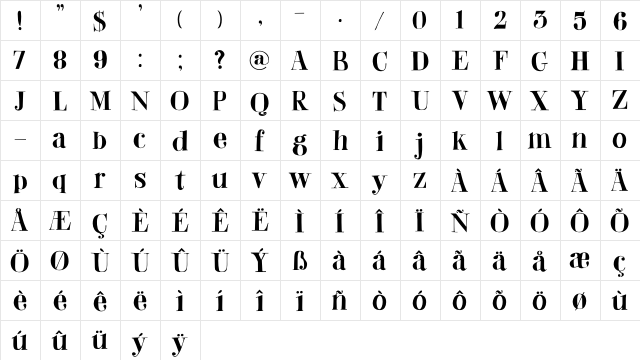
DK Abeille Regular
| Foundry | David Kerkhoff |
| Designer | David Kerkhoff |
Design Context for DK Abeille Typeface
DK Abeille is a composed and adaptable typeface that performs quietly and consistently across a wide range of design contexts.